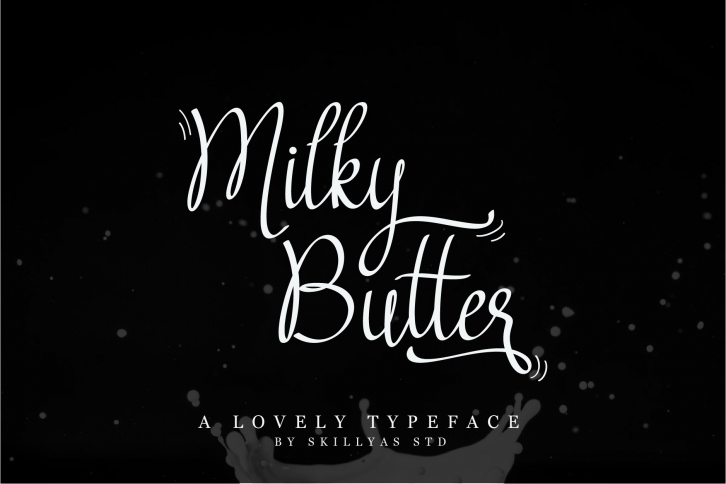
Milky Butter is a great font that was designed by Skillyas std. Imagine the amount of combinations you can create using this font! The archive is 17.39 MB and it was released on February 5, 2021. Milky Butter looks beautiful on wedding invitations, greeting cards, logos, posters, labels, t-shirt designs, logos, business cards and is perfect for use in ink or watercolor works, fashion, magazines, packaging and food menus, children's books and more!